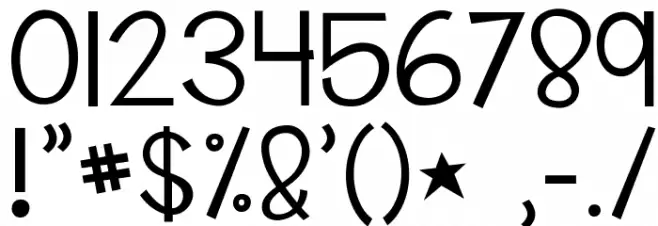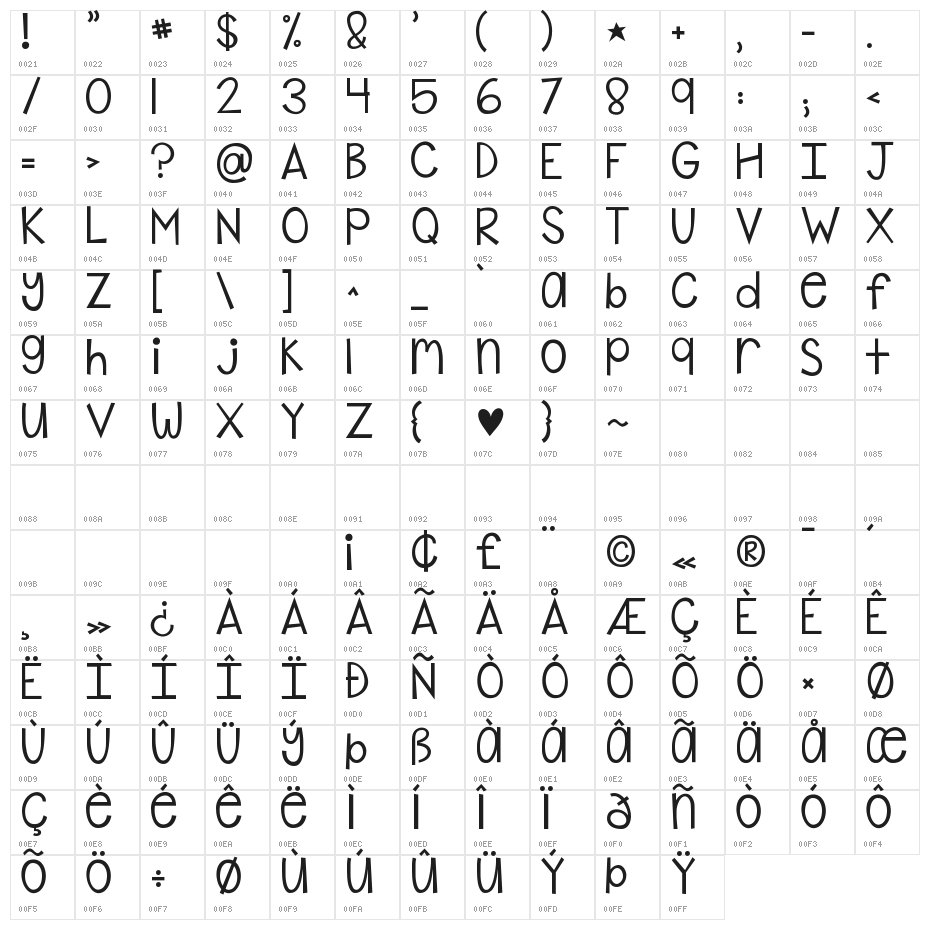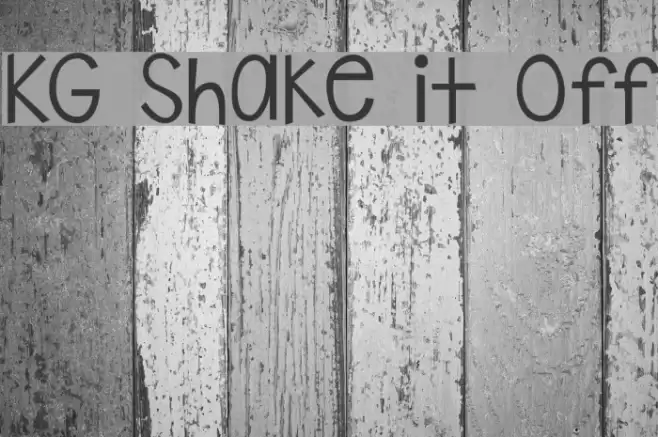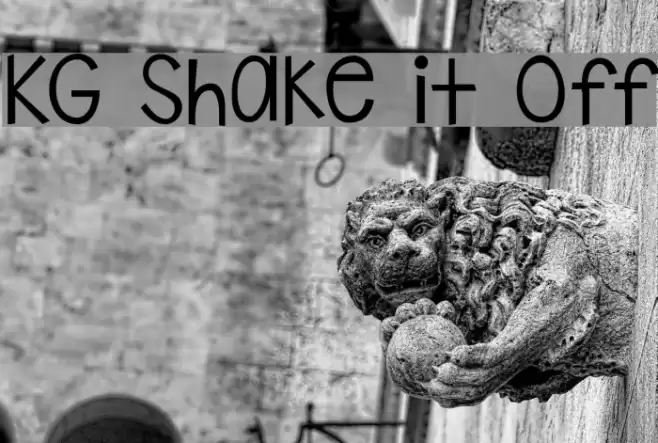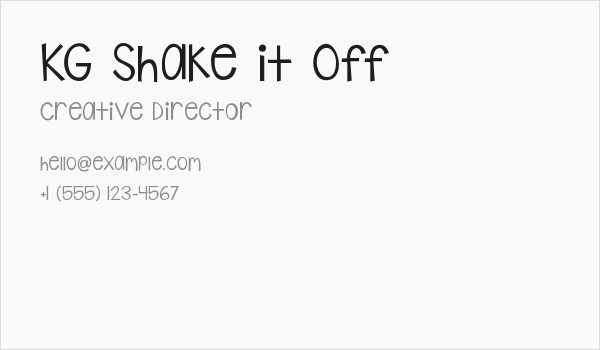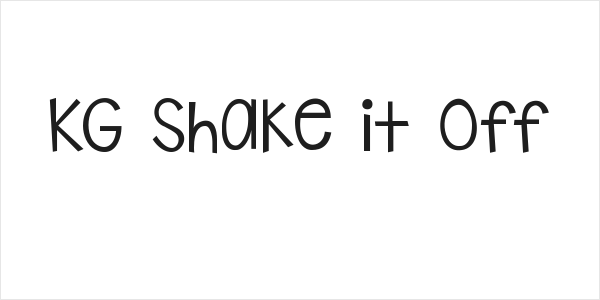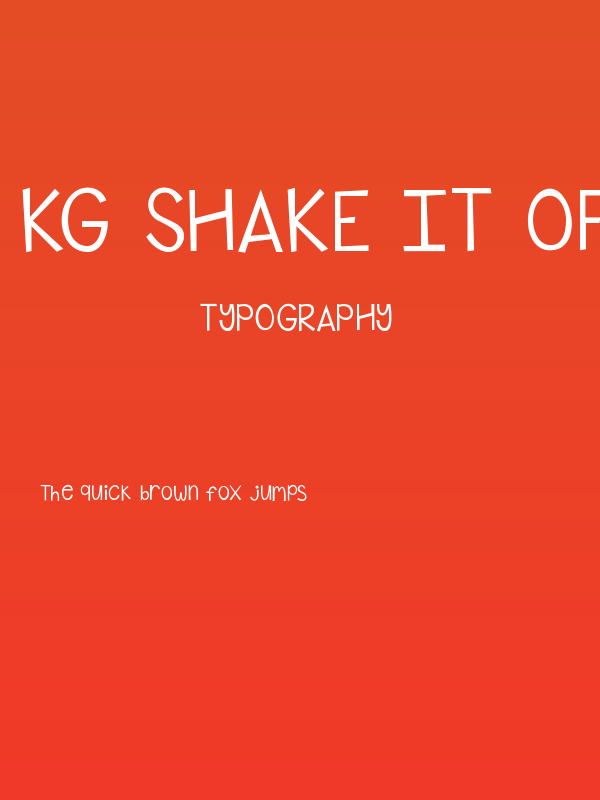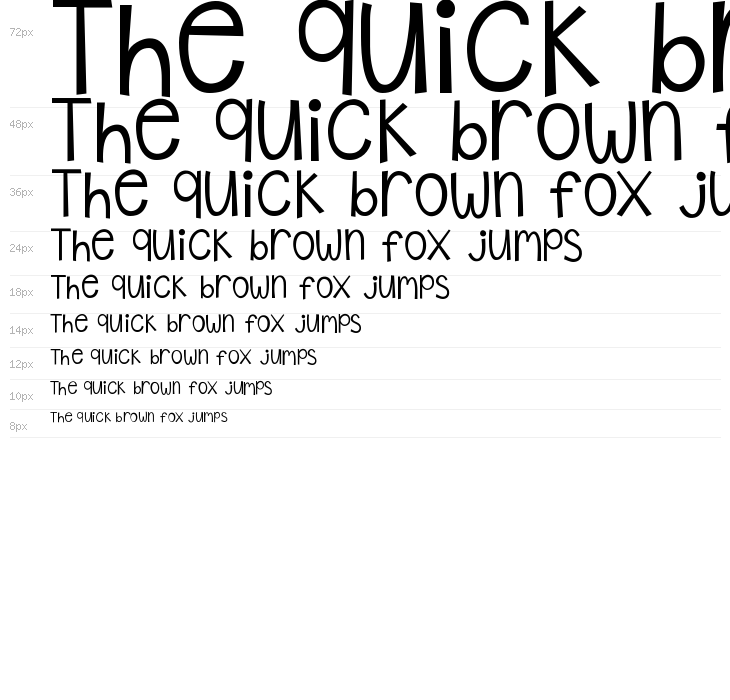
KG Shake it Off Font
KG Shake it Off Description
This playful and whimsical font features a hand-drawn aesthetic with a casual, friendly vibe. The characters are slightly irregular, adding to its charm and making it ideal for informal and creative projects. The uppercase letters are bold and prominent, while the lowercase letters maintain a consistent style with rounded edges and a slightly tilted appearance. The numerals are clear and easy to read, matching the overall playful theme. Special characters are included, maintaining the same hand-drawn style, which adds versatility to the font's use. This font brings a sense of fun and creativity, making it suitable for a variety of design needs.
| Proposed Projects | Ideal for children's books, playful branding, greeting cards, and creative social media graphics. |